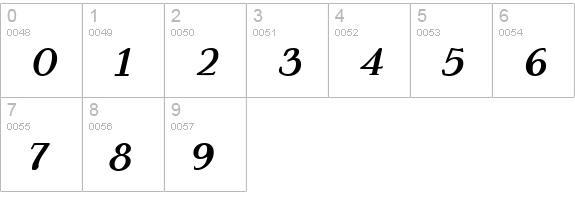
IngrianEuroikaH BoldItalic Font Details
IngrianEuroikaH BoldItalic is a stunning and eye-catching font that is sure to make a bold statement in any design project. With its unique combination of bold and italic styles, this font exudes confidence and elegance. The intricately designed letterforms captivate the viewer's attention, while the bold strokes add a touch of strength and power. This font is perfect for headlines, logos, posters, and any design that requires a strong and impactful typographic element. What makes IngrianEuroikaH BoldItalic even more appealing is that it is available for free download at FontsMarket.com. This means that you can easily access this impressive font without having to spend a single penny. Whether you are a professional designer or a creative enthusiast, this font is a valuable addition to your collection. IngrianEuroikaH BoldItalic boasts excellent legibility, making it suitable for both print and digital projects. The carefully crafted letterforms ensure that each character is easily distinguishable, even at smaller sizes. This font is also highly versatile, allowing it to be used in various design styles and themes. The attention to detail in IngrianEuroikaH BoldItalic is truly remarkable. Every curve, every line, and every serif has been meticulously designed to create a harmonious and captivating overall look. The bold and italic styles work seamlessly together, creating a visual rhythm that adds depth and sophistication to your designs. With its impressive features and its availability as a free download, IngrianEuroikaH BoldItalic is a font that should not be missed. Whether you are working on a professional project or a personal endeavor, this font is a valuable asset that will elevate your designs to new heights. Download IngrianEuroikaH BoldItalic today at FontsMarket.com and experience the power and beauty of this font firsthand.